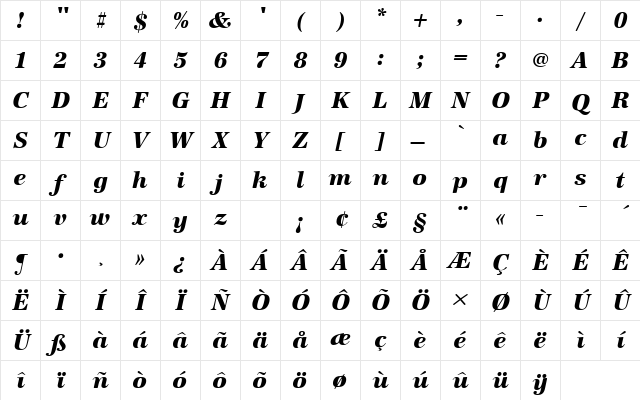
URWAntiquaTExtBolItaRo1 Regular
Design Context for URWAntiquaTExtBolItaRo1
URWAntiquaTExtBolItaRo1 is a composed and adaptable typeface that performs quietly and consistently across a wide range of design contexts.